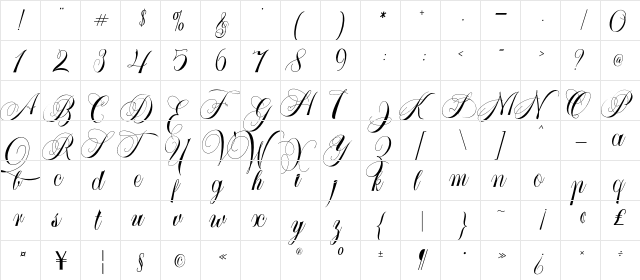
Larasati Regular
Design Context for Larasati Typeface
Larasati is a composed and adaptable typeface that performs quietly and consistently across a wide range of design contexts.